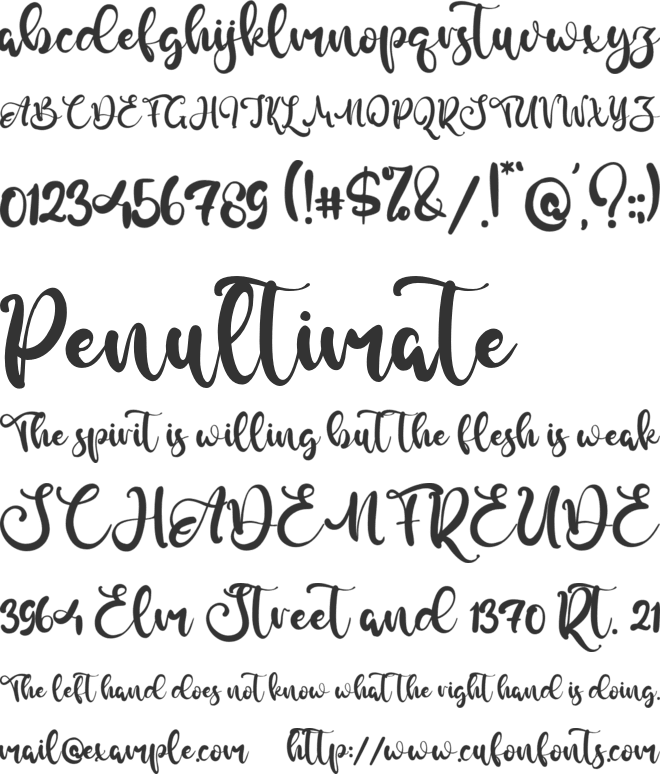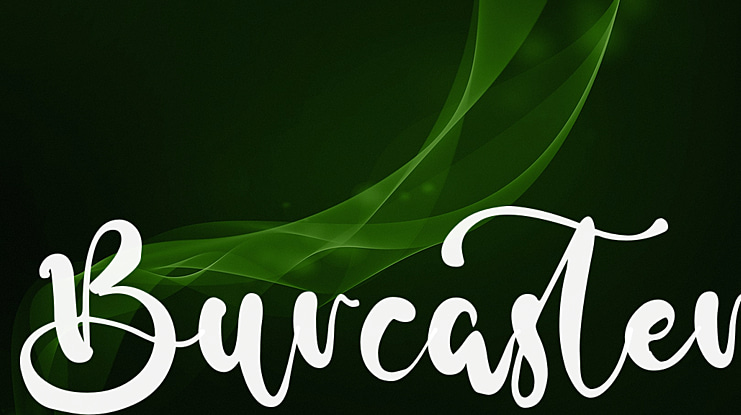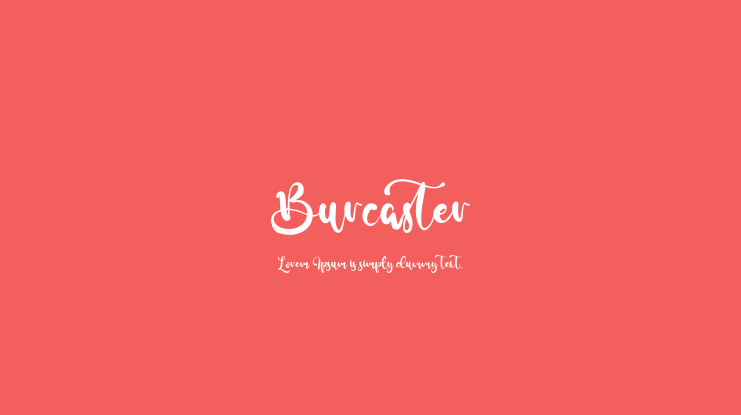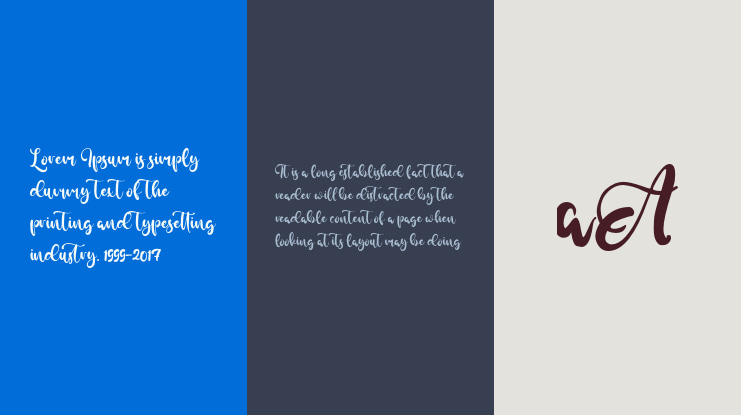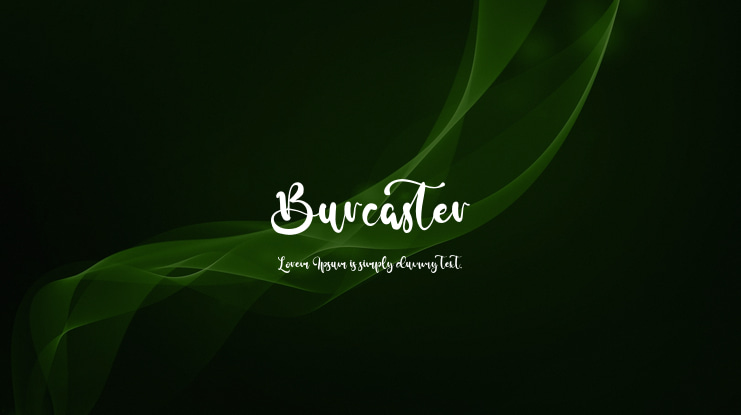
Burcaster Font Family
Introducing our New Font, very suitable as to make adorable invitation for wedding, birthday, special day. A collection of letters and numbers suitable your projects also great for Logotype, Branding Design, Logo Design, Digital Lettering Arts, T-Shirt/Apparel, Poster, Magazine, Signs, Advertising Design, and also perfect for your other projects branding.
Burcaster font preview